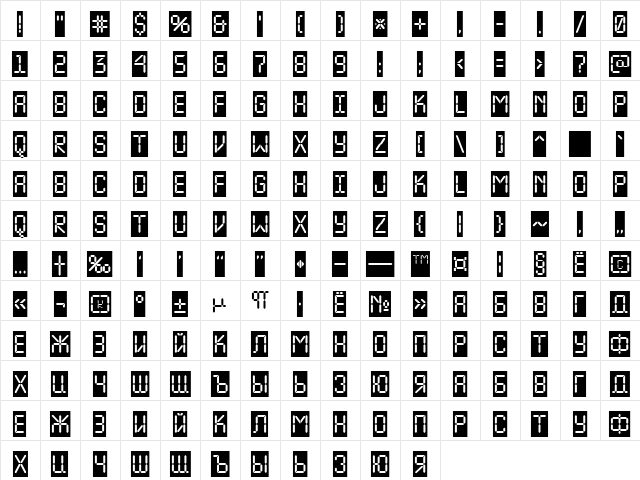
a_LCDNovaCm Regular Font Preview
a_LCDNovaCm Regular
Design Context for a_LCDNovaCm Typeface
a_LCDNovaCm is a composed and adaptable typeface that performs quietly and consistently across a wide range of design contexts.